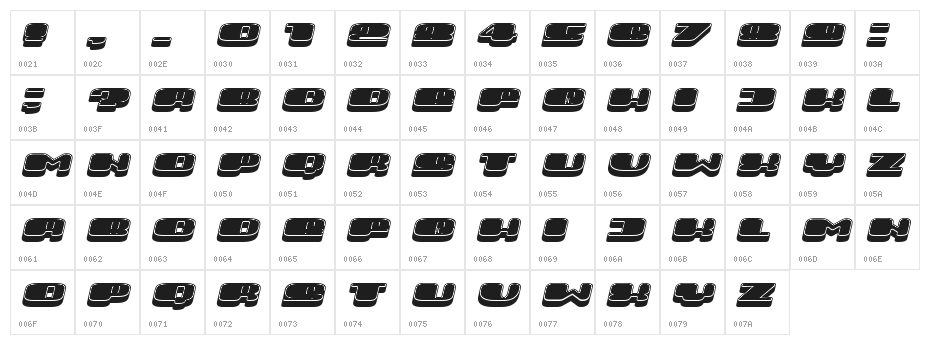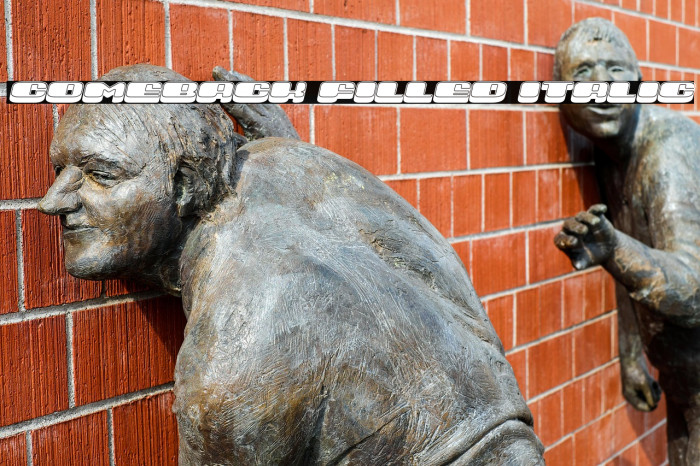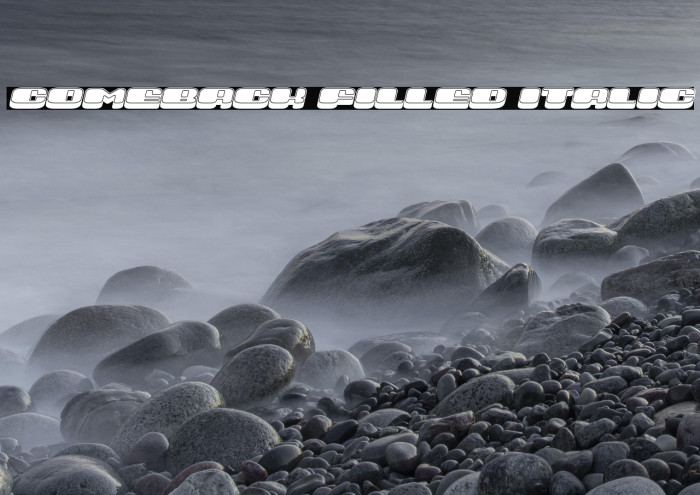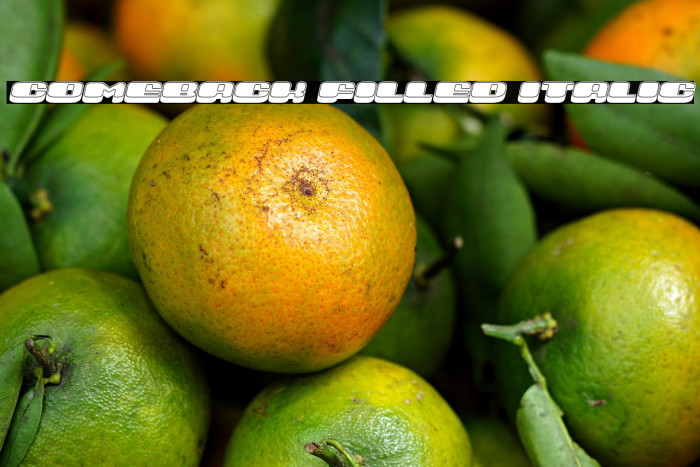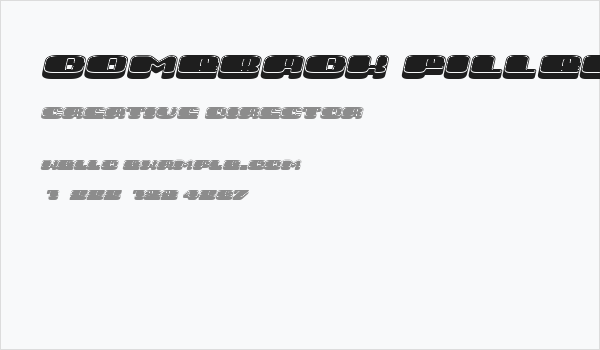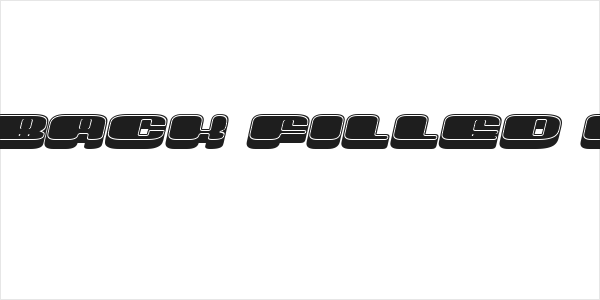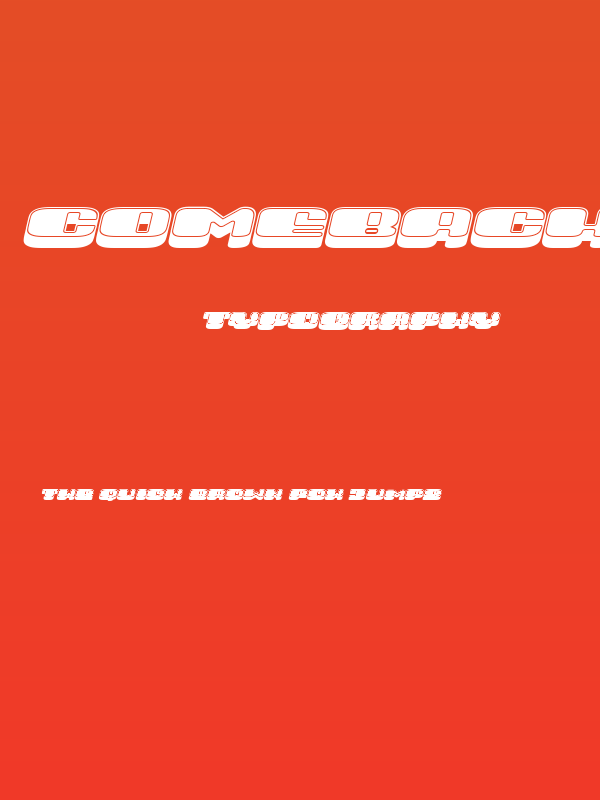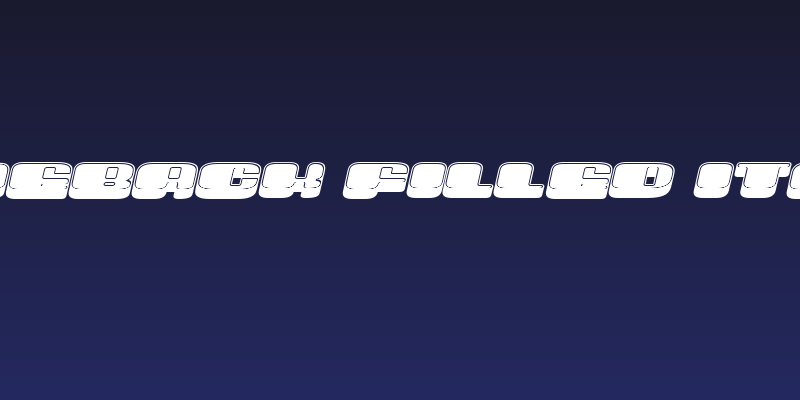
Comeback Filled Italic Font
Comeback Filled Italic Description
This font features a bold, filled style with a distinct italic slant, giving it a dynamic and modern appearance. The characters are rounded and have a smooth, continuous flow, creating a cohesive and unified look. The boldness of the font is emphasized by the filled-in design, making it stand out prominently. The italic angle adds a sense of motion and energy, suitable for contemporary and eye-catching designs. The font maintains a consistent thickness throughout, contributing to its strong visual impact. It is particularly effective for projects that require a bold statement or a modern, stylish touch.
| Proposed Projects | Ideal for branding, advertising, headlines, and modern graphic design projects. |